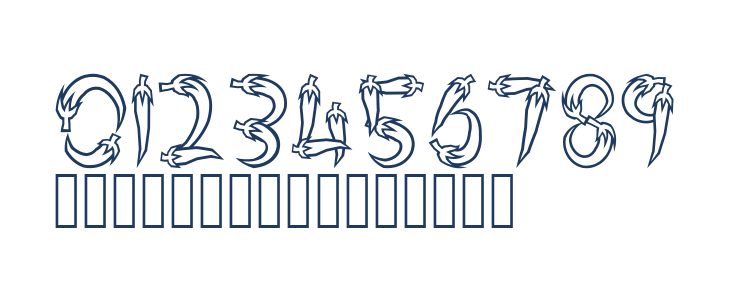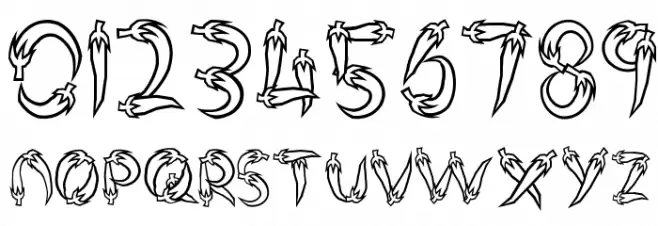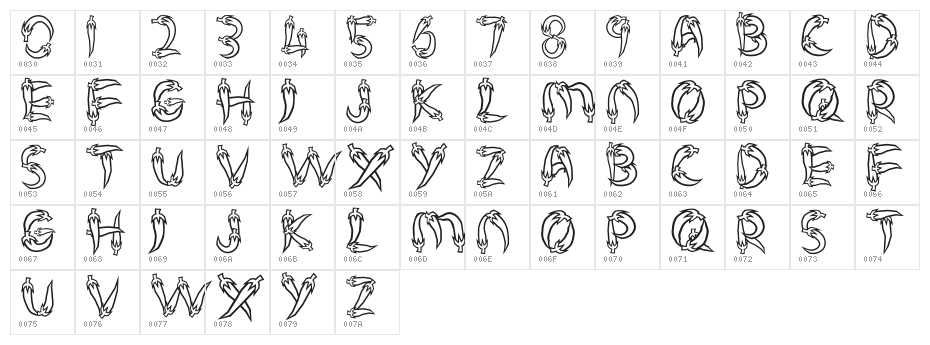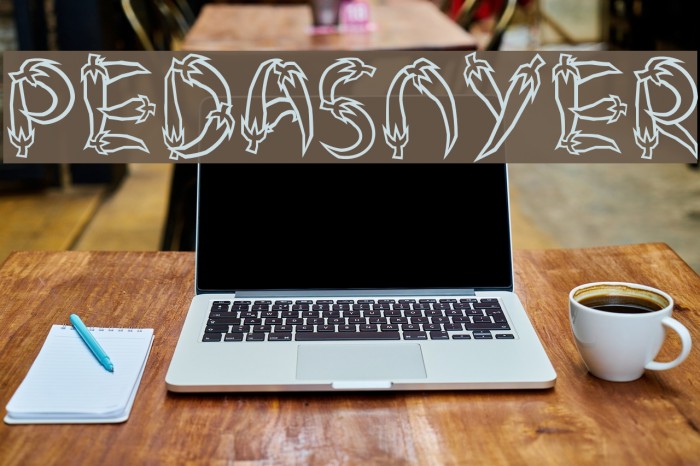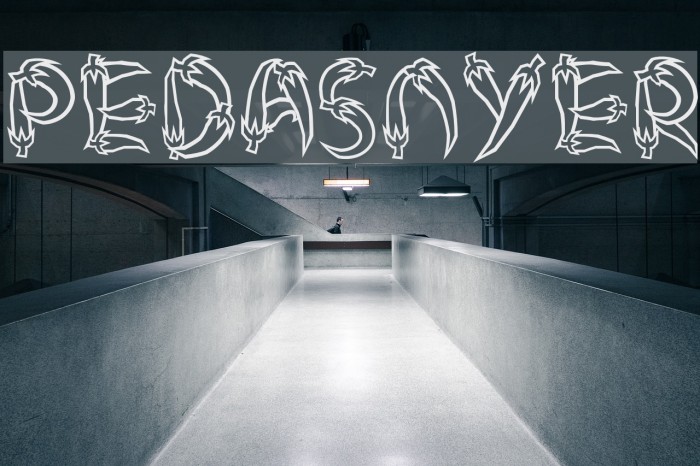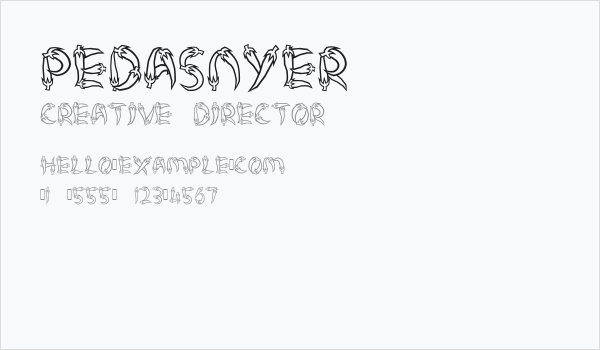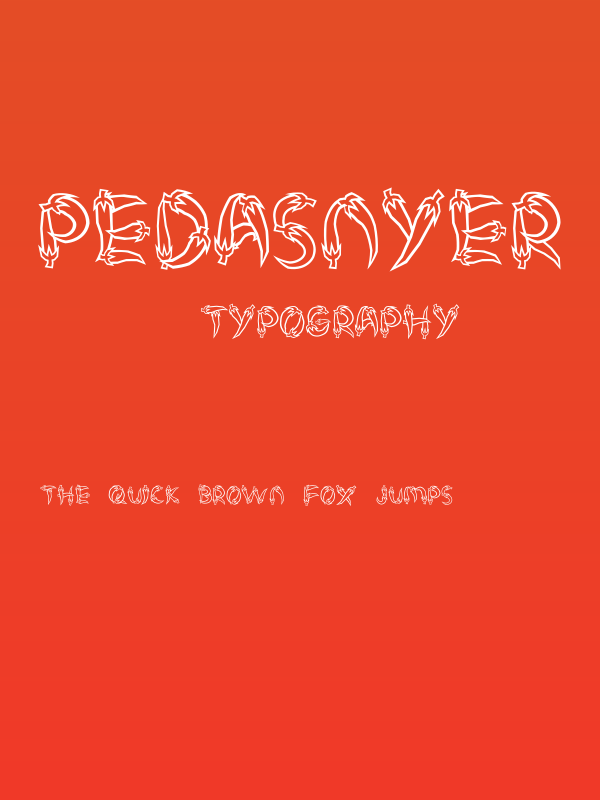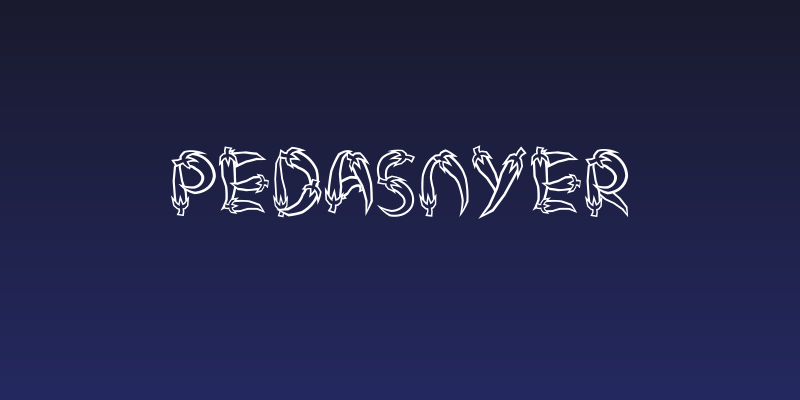
PEDASNYER Font
PEDASNYER Description
This font features a bold and dynamic design with a unique, edgy style. Each character is crafted with sharp, angular lines and intricate details that resemble flames or claws, giving it a fierce and energetic appearance. The uppercase and lowercase letters maintain a consistent theme, with the uppercase being more pronounced and the lowercase slightly more compact. Numbers and special characters follow the same stylistic approach, ensuring a cohesive look across all elements. The font's distinctiveness makes it stand out, making it ideal for projects that require a strong visual impact.
| Proposed Projects | Ideal for branding, posters, album covers, and any project needing a bold, impactful design. |